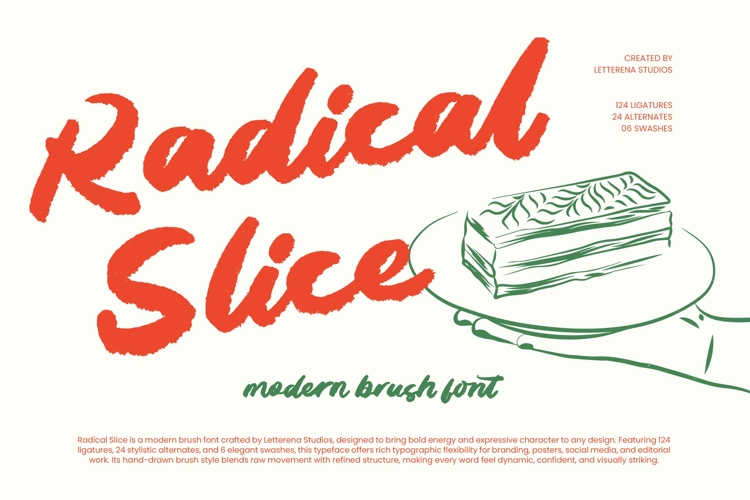
Radical Slice - Modern Brush Font
Elevate your creative vision with a typeface that embodies raw energy and artistic flair. Radical Slice - Modern Brush Font is a masterclass in expressive typography, blending hand-drawn brushstrokes with a sharp, contemporary edge. This modern brush font captures a sense of dynamic movement and authentic texture, making it the perfect choice for designers looking to inject bold character into their visual projects.
Experience unparalleled design flexibility through a rich library of specialized typographic features. Packed with 124 ligatures, 24 stylistic alternates, and 6 elegant swashes, Radical Slice - Modern Brush Font offers a customized, high-end look for every layout. With its extensive multilingual support, Radical Slice - Modern Brush Font adapts seamlessly across global markets, making it incredibly versatile for international projects and ensuring your message resonates worldwide with flawless legibility.
Command attention across diverse media platforms with a font designed for high-impact visual storytelling. This typeface is an ideal application for streetwear branding, editorial design, and eye-catching social media graphics. It is perfect for luxury packaging, logo design, and dynamic posters where a striking visual presence is required. Whether used for event promotions or lifestyle blogs, Radical Slice - Modern Brush Font delivers a premium aesthetic that stands out in a crowded marketplace.